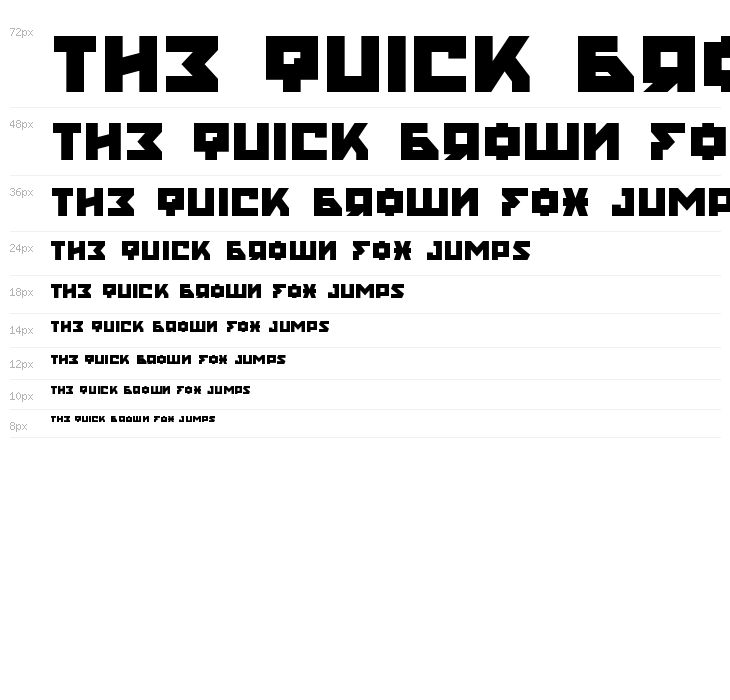
Nyet Font
Nyet Description
This font features a bold and geometric design with sharp angles and a blocky appearance. Each character is constructed with thick, uniform strokes, giving it a strong and impactful presence. The uppercase and lowercase letters maintain a consistent style, emphasizing angular and straight lines. Numbers and special characters follow the same design principles, ensuring a cohesive look across all glyphs. The font's unique style makes it stand out, suitable for projects that require a modern and edgy aesthetic.
| Proposed Projects | Ideal for posters, logos, video game graphics, and any project needing a modern, edgy look. |